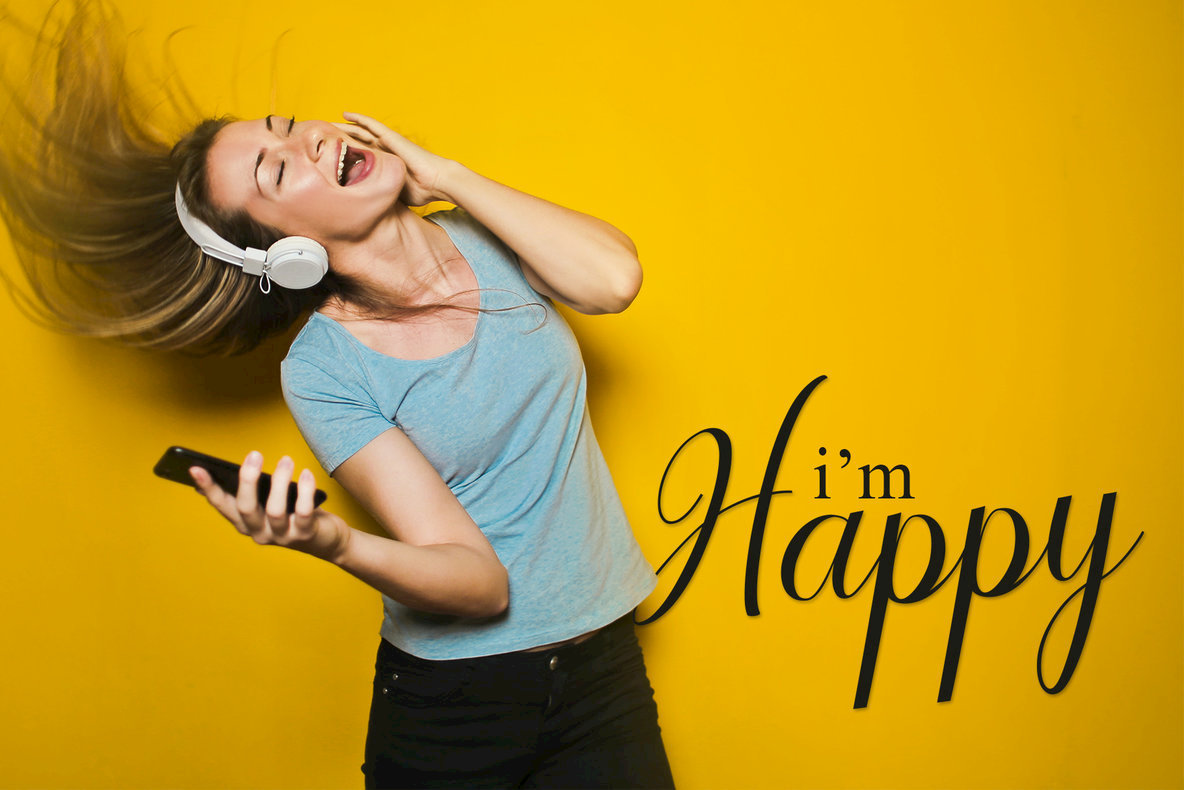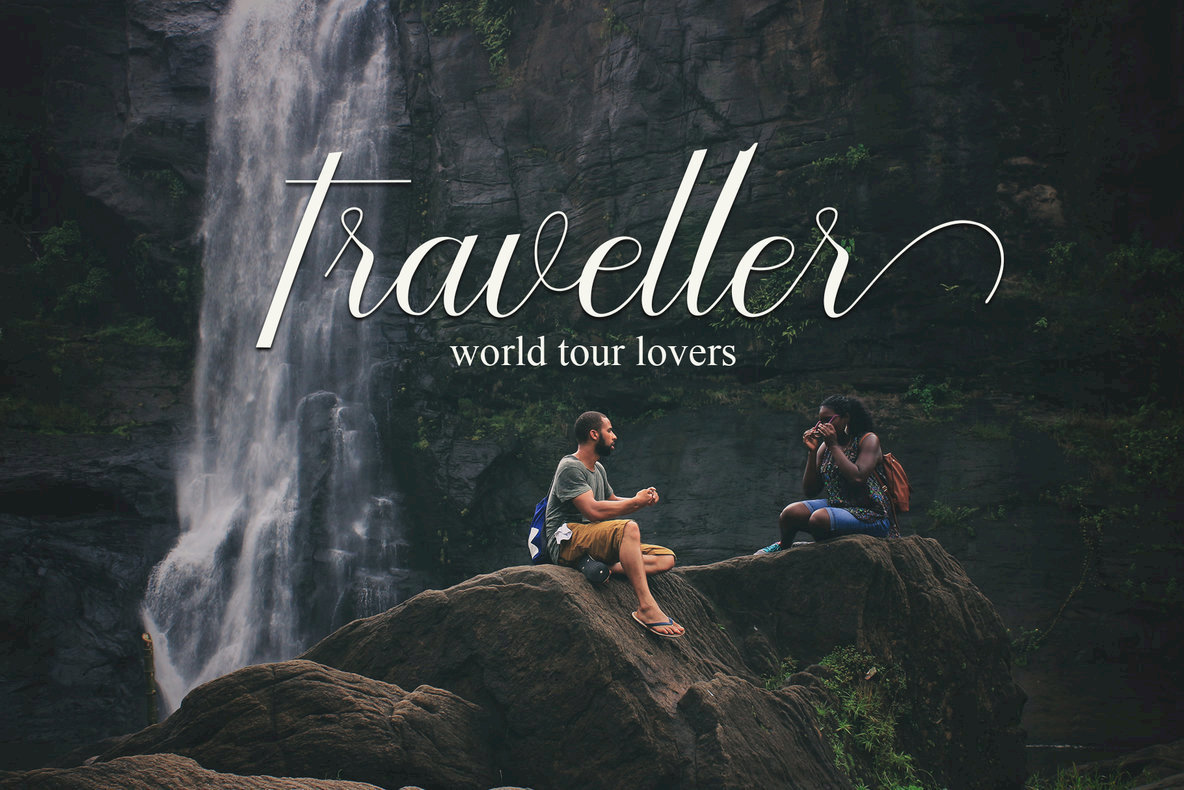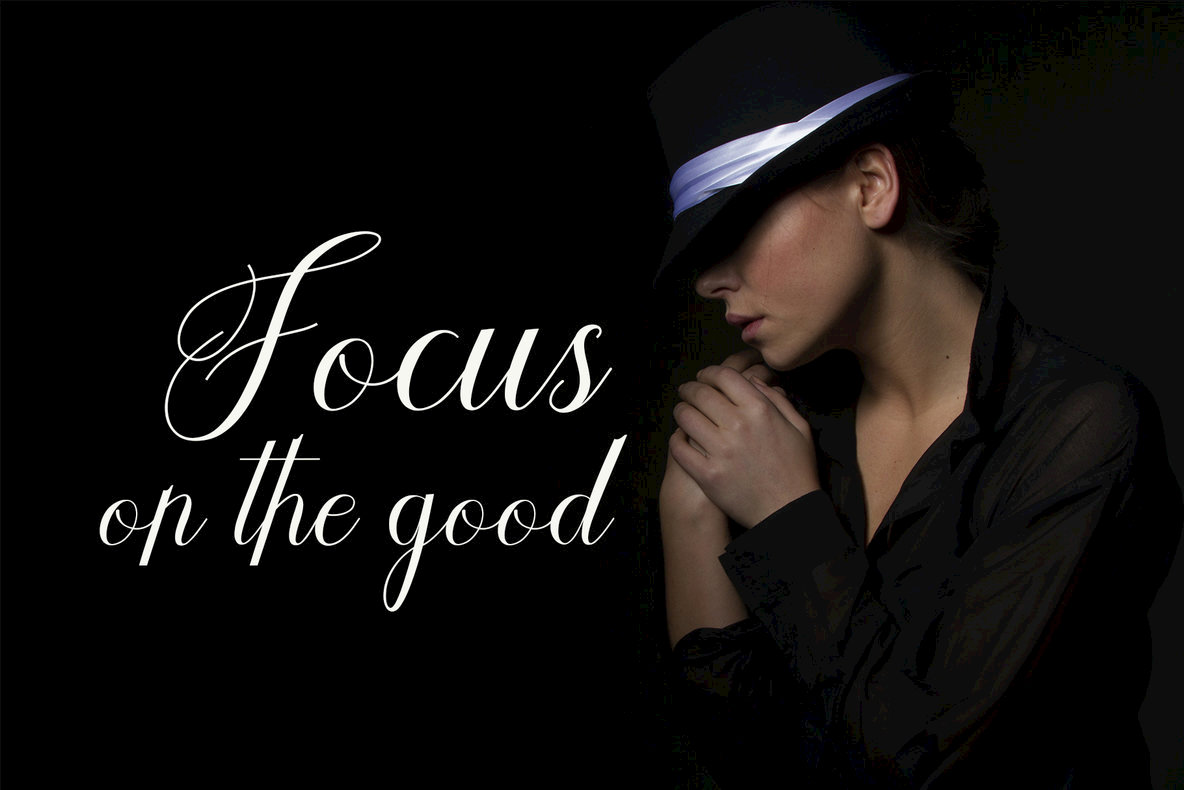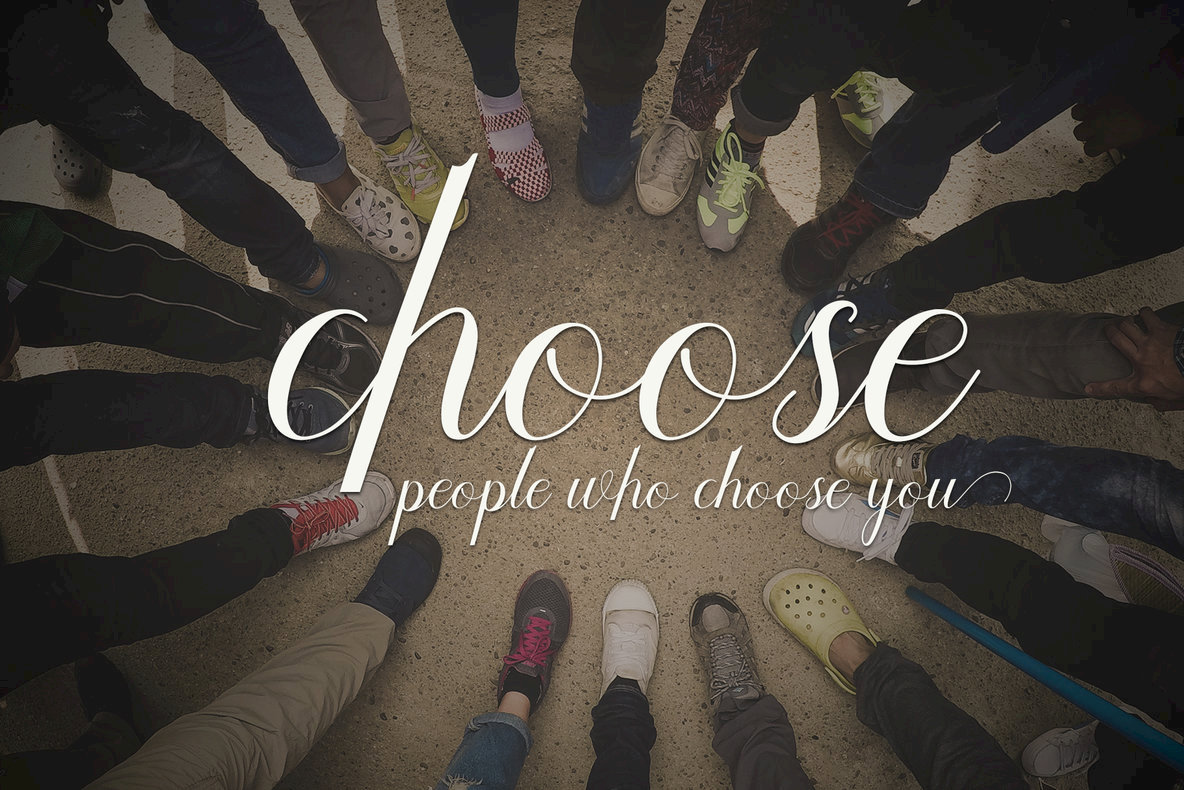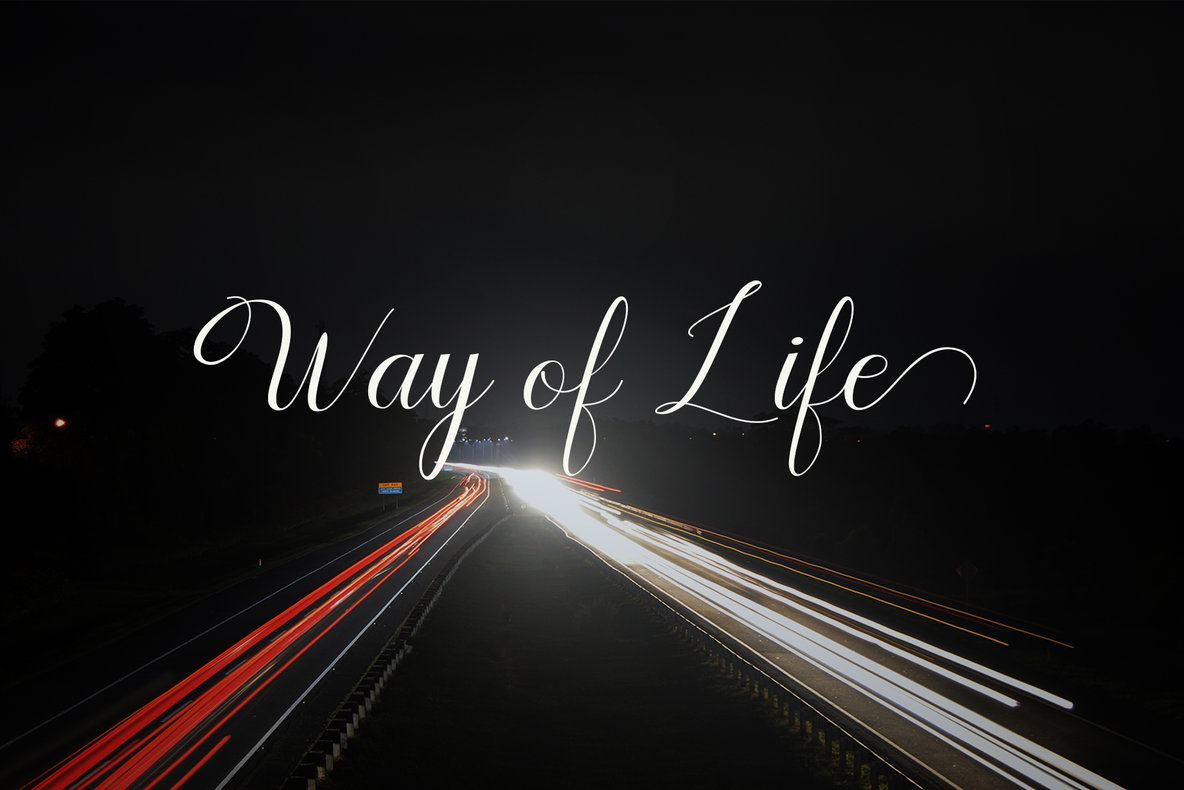
Humilde Script: A Contemporary Calligraphy Font
Humilde Script offers an engaging blend of a fresh, modern script with handcrafted calligraphic aesthetics. This font shines in diverse applications, from invitation greeting cards to branding materials, business cards, quotes, and posters. Its decorative characters infuse a touch of elegance into every project.
• Handmade calligraphy style for a personal touch.
• Includes decorative characters enhancing visual appeal.
• Versatile use cases, including invitations, quotes, and more.